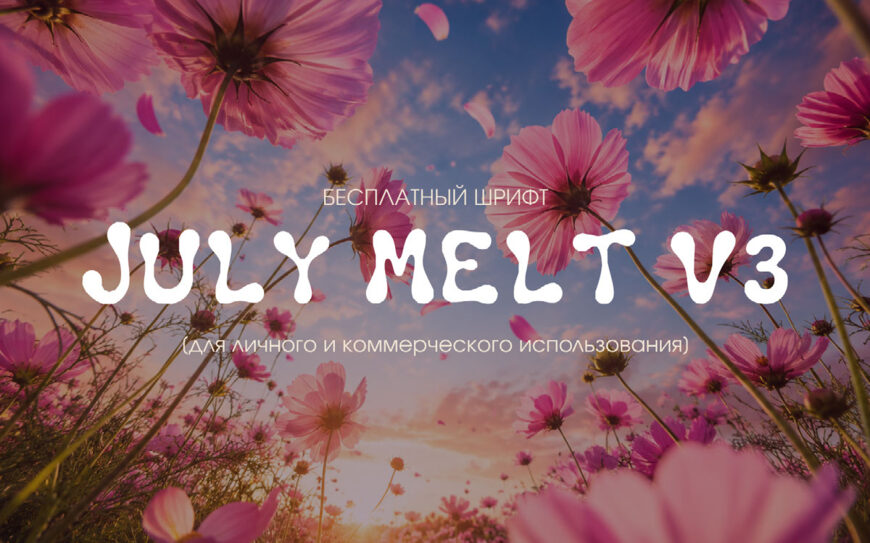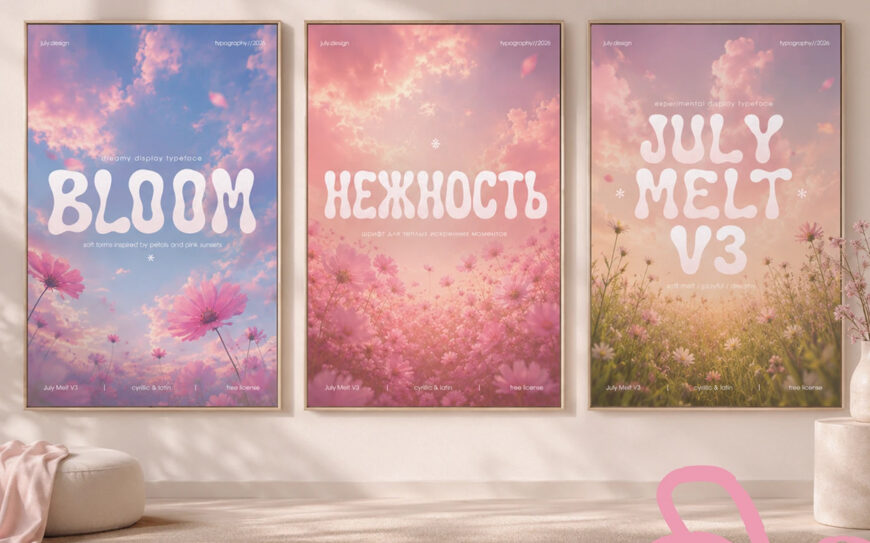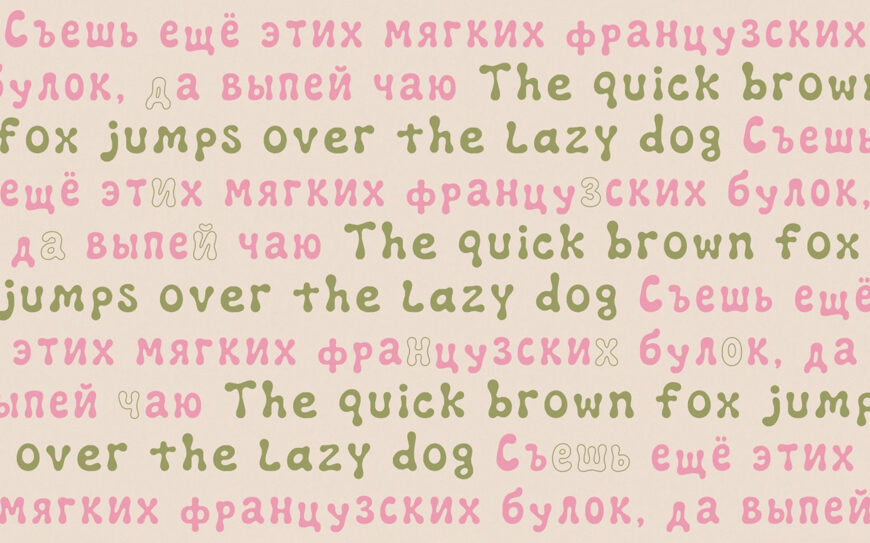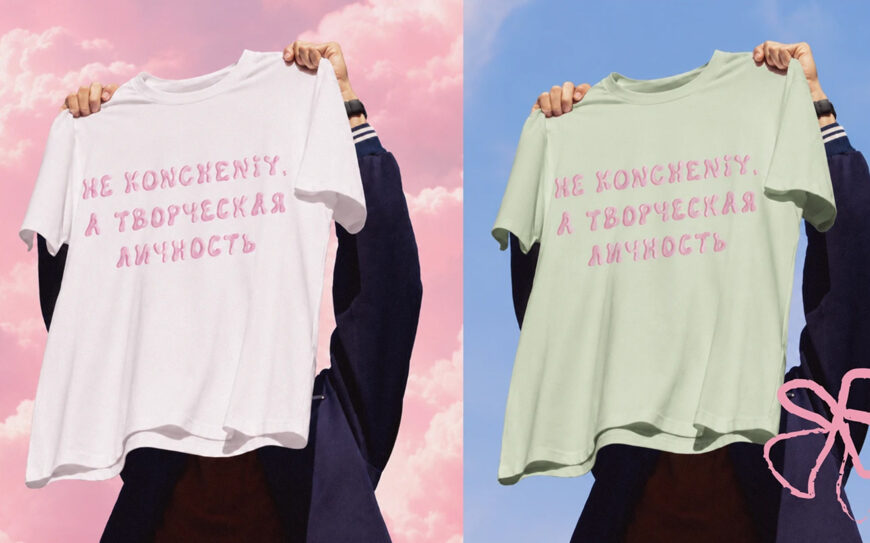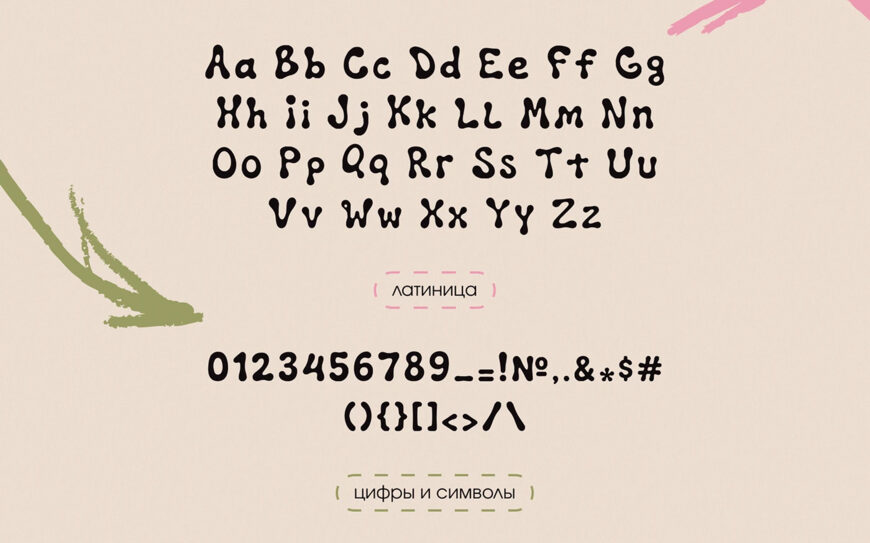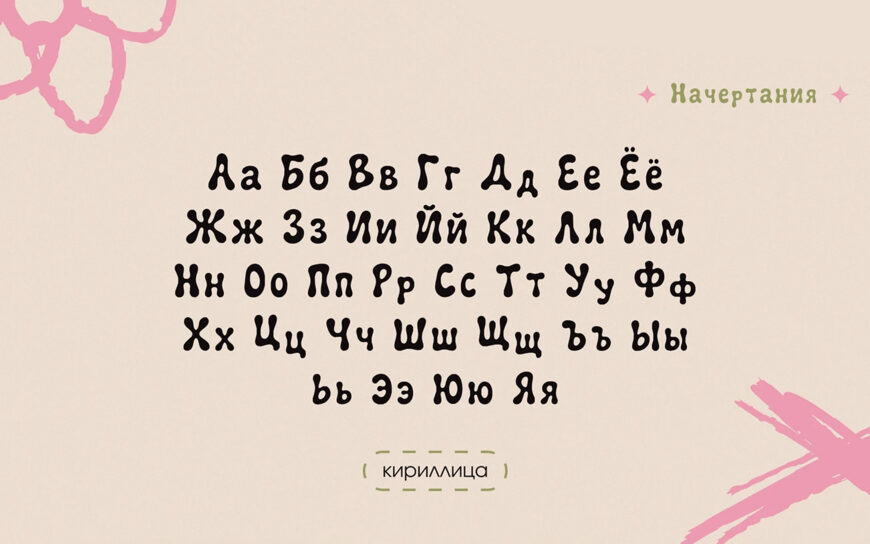
July Melt V3 is a playful free font by Julia Sorokina, featuring soft, hand-drawn letterforms with a charming, slightly irregular appearance.
Its friendly and creative style works beautifully for posters, branding, social media graphics, packaging, apparel, and cheerful editorial designs. Supporting both Cyrillic and Latin characters, along with numbers and symbols, July Melt V3 is a versatile choice for projects that need a warm, handmade personality.